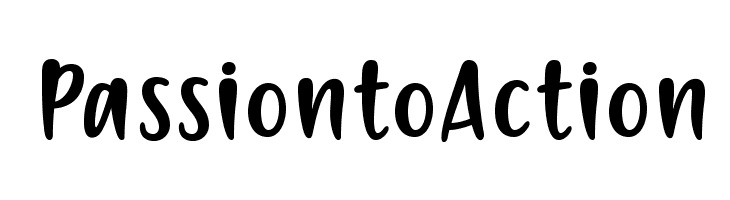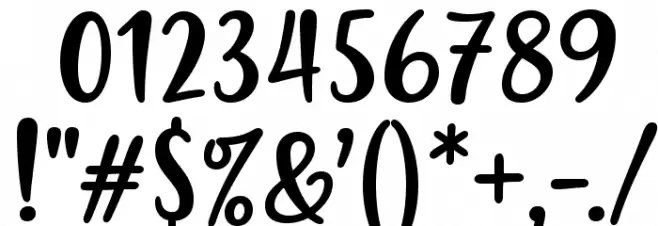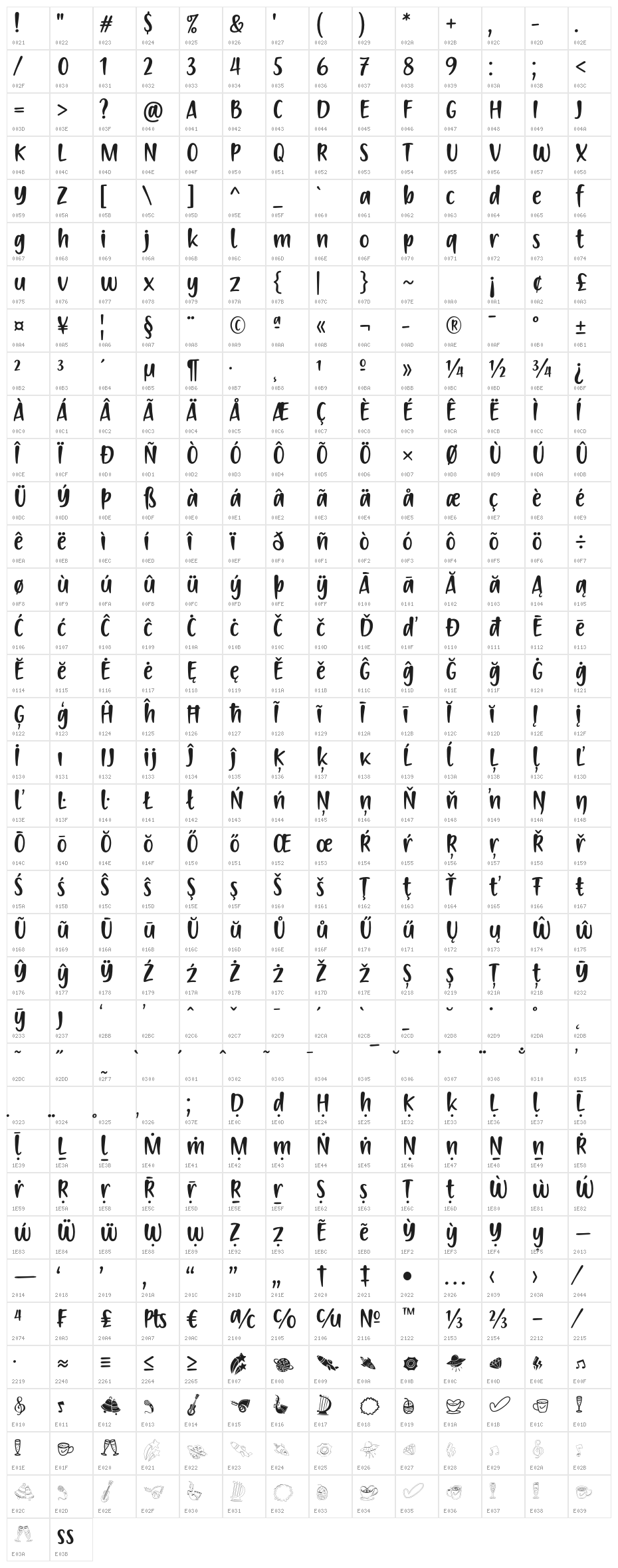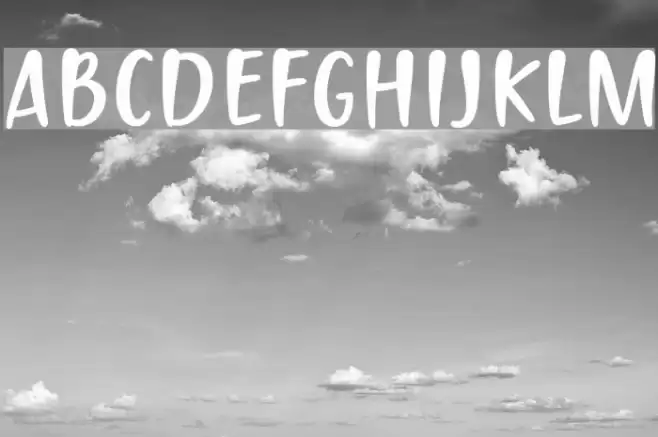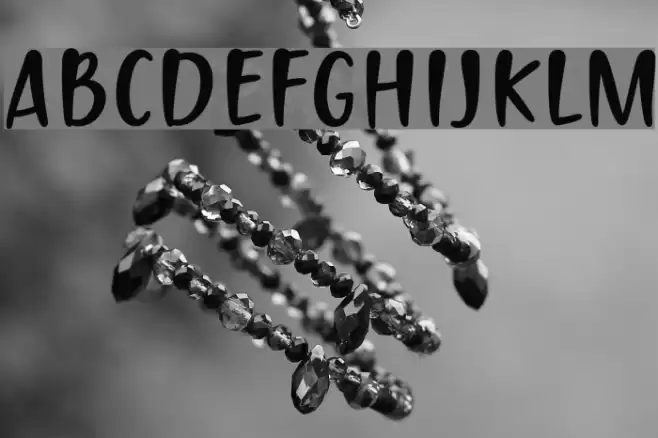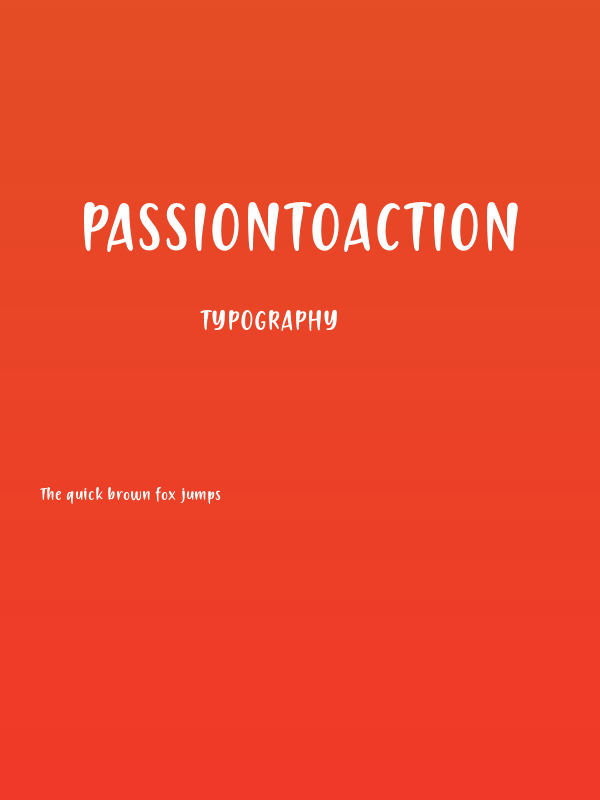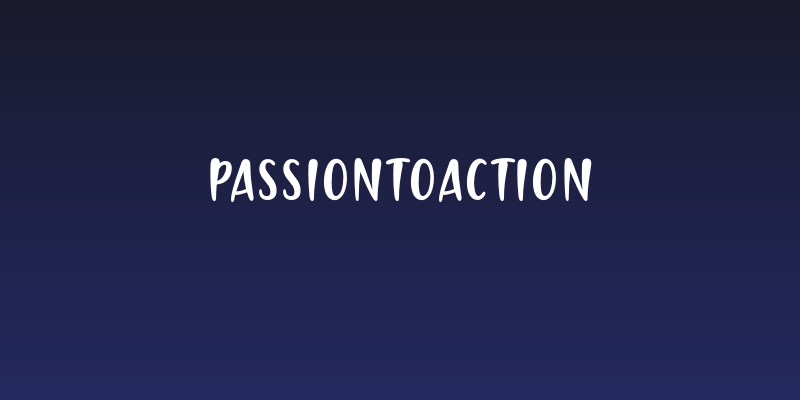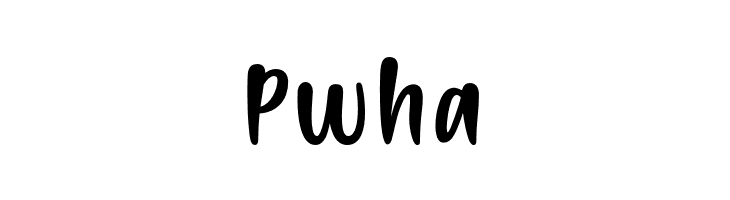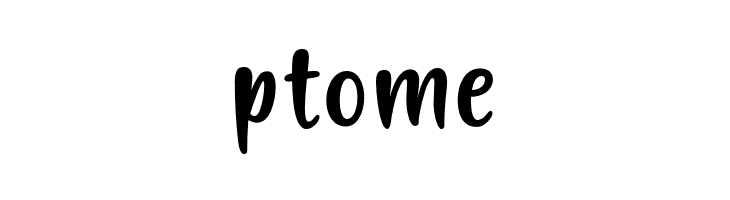
PassiontoAction Font
This font exudes a playful and energetic vibe, characterized by its bold, rounded strokes and slightly irregular, hand-drawn appearance. The letters have a consistent thickness, giving it a uniform look while maintaining a casual, friendly feel. The uppercase and lowercase letters are well-balanced, with a slight slant that adds to its dynamic nature. The numbers and special characters follow the same style, ensuring cohesion across all elements. This font is perfect for projects that require a personal touch, such as invitations, greeting cards, or branding for creative businesses.
| Overall Style | Playful, Casual |
| Proposed Projects | Ideal for invitations, greeting cards, creative branding, and playful designs. |